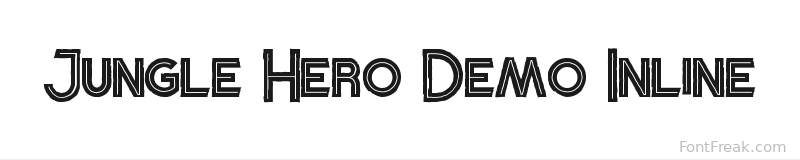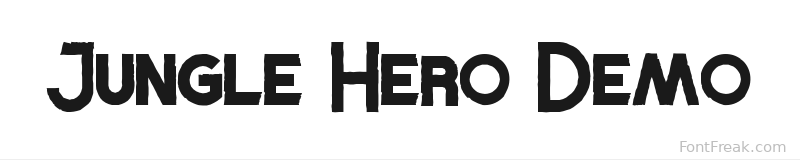
Jungle Hero Demo Inline
Jungle Hero Demo
About Jungle Hero Demo Inline
The Jungle Hero Demo Inline font by Noah Type is a captivating display font that stands out with its unique character. This decorative font features a bold inline style that adds depth and visual interest to any design project. The stroke weight is substantial, creating an eye-catching presence, while the contrast between the thick and thin lines enhances its playful yet robust aesthetic. The spacing is well-balanced, ensuring readability while maintaining a distinct jungle-themed flair.
Ideal for various creative applications, this font shines in environments where adventure and excitement are key. It is particularly effective for movie posters, especially those with action or adventure themes, as it communicates a sense of dynamism and energy. Additionally, the Jungle Hero Demo Inline font works wonderfully for children's book covers or illustrations, where its whimsical nature can capture the imagination of young readers. Graphic designers looking to create vibrant restaurant menus will find this font to be an excellent choice, giving a lively touch to culinary presentations. Furthermore, it can be utilized in promotional materials for outdoor events, appealing to an audience eager for adventure and exploration.
What makes the Jungle Hero Demo Inline font truly stand out is its ability to convey a spirit of adventure and fun while remaining functional for a range of applications. Its distinctive style ensures that any project utilizing this font will leave a lasting impression, making it a valuable addition to any designer's toolkit.